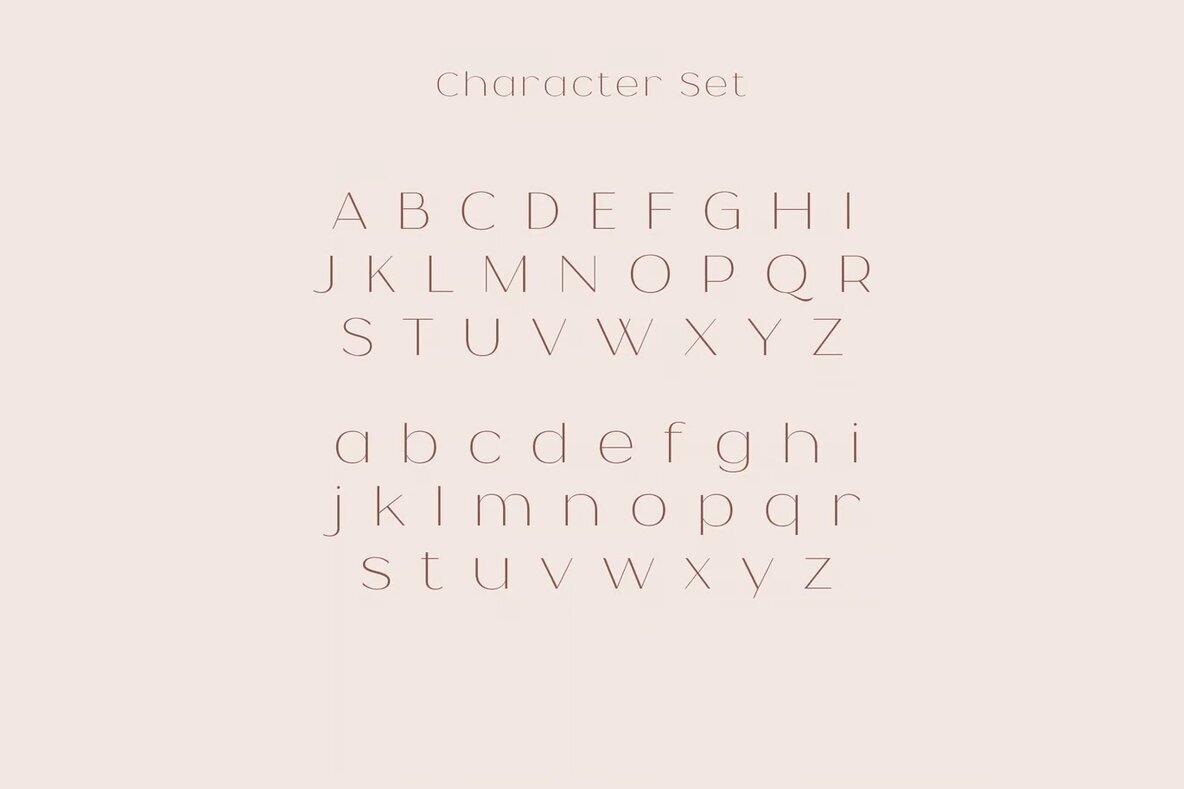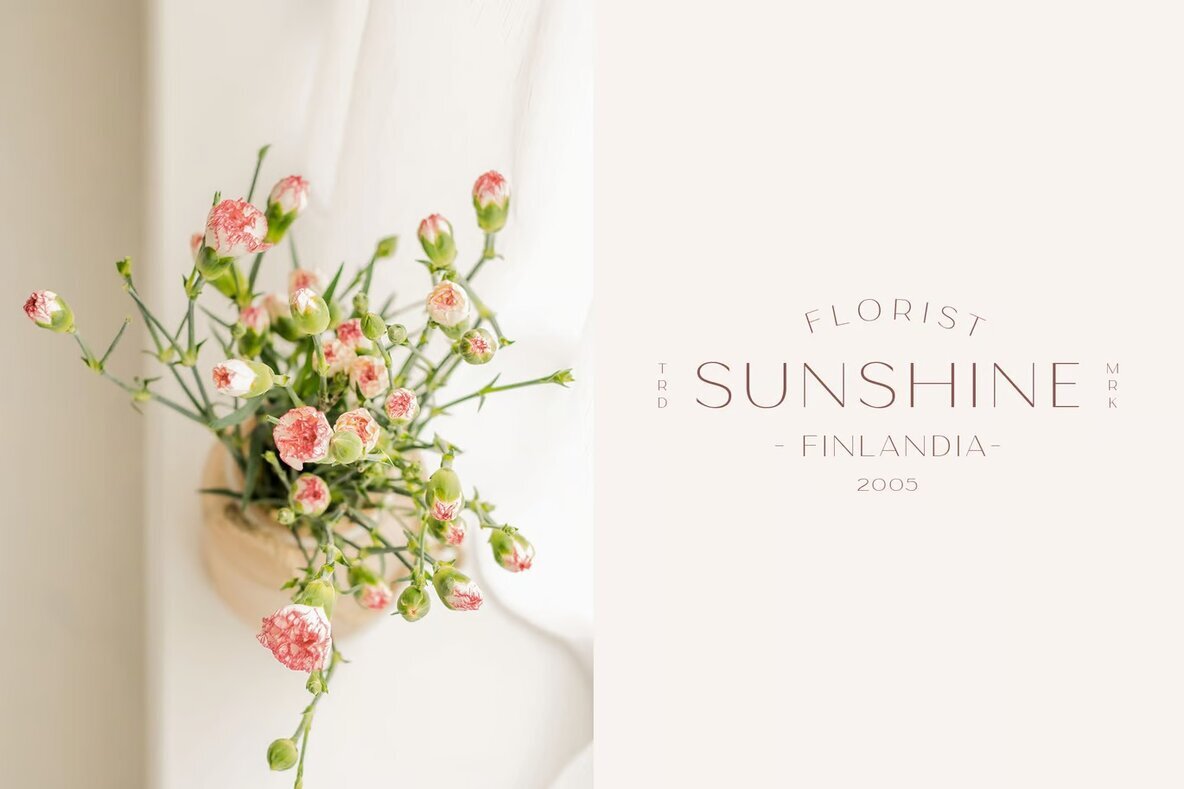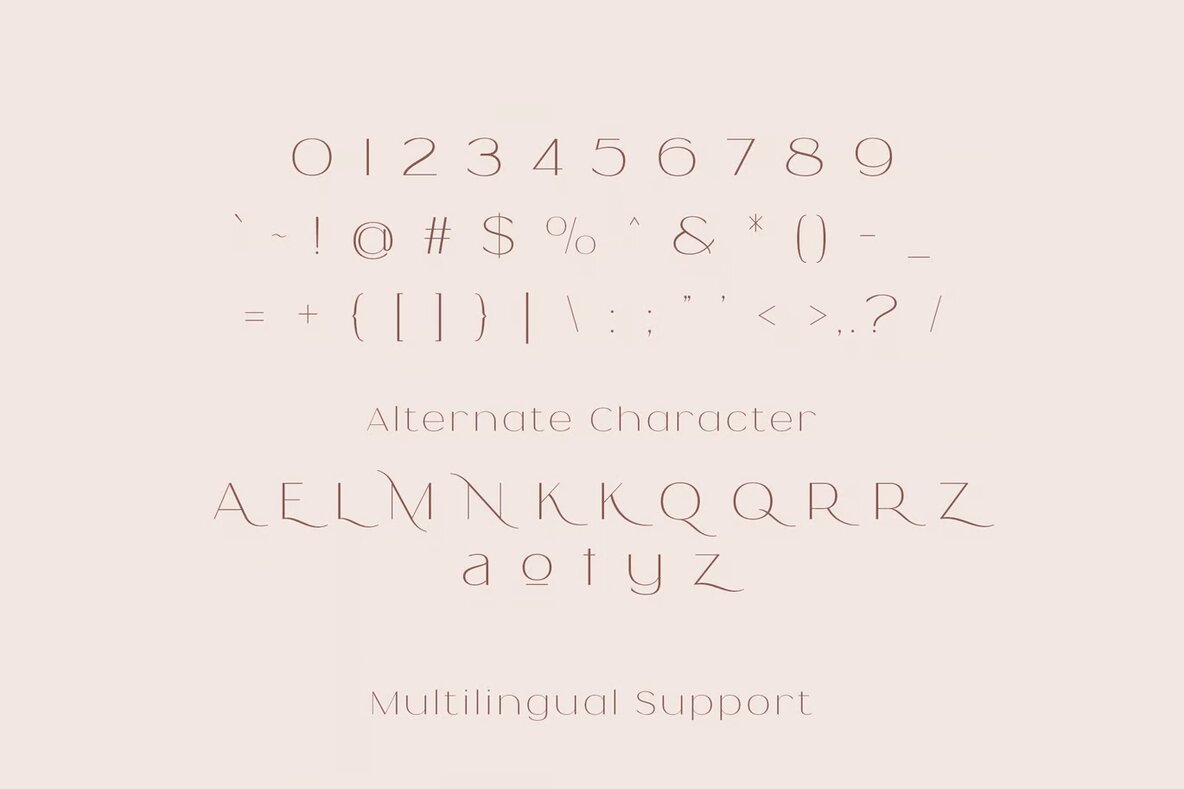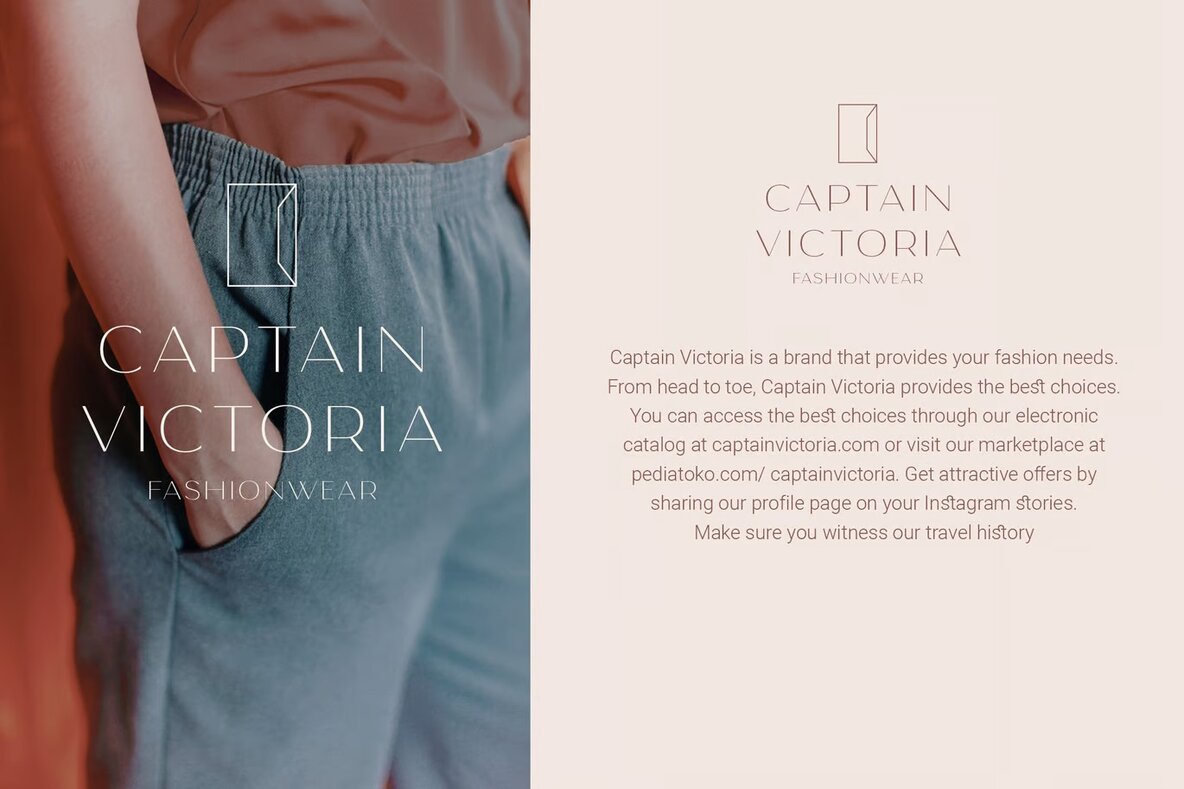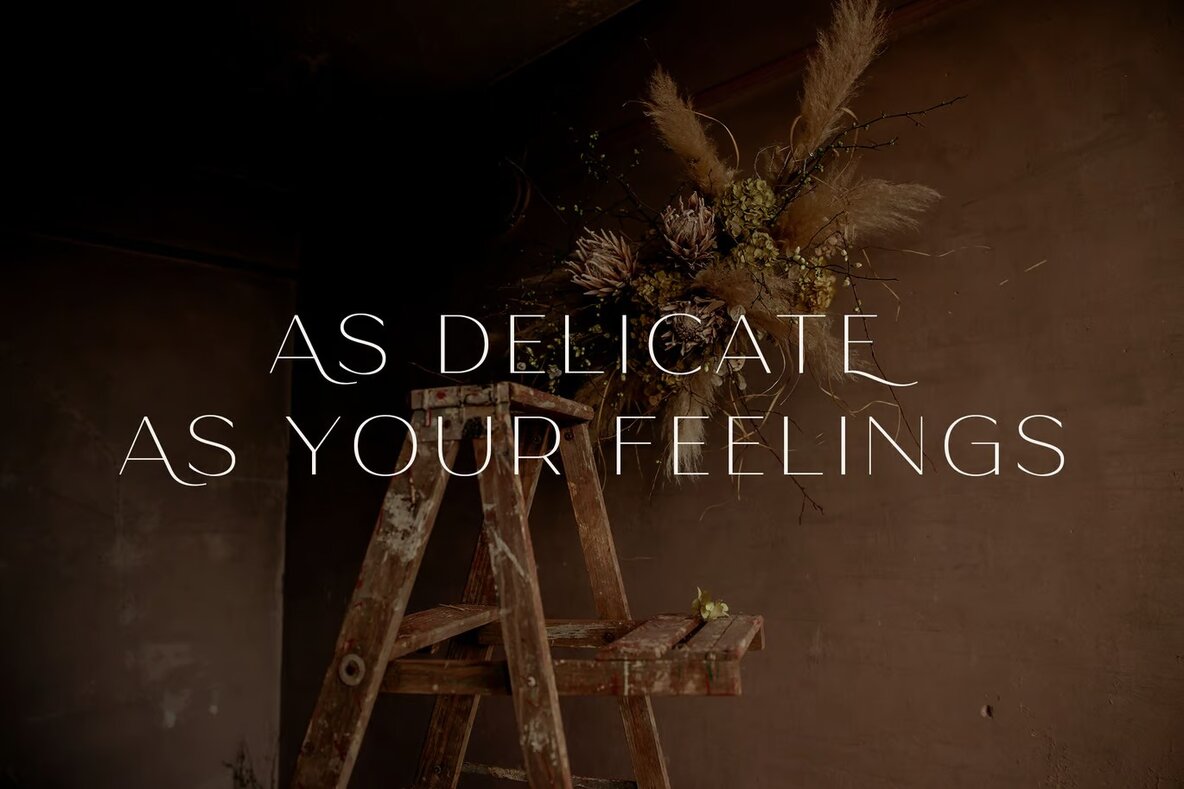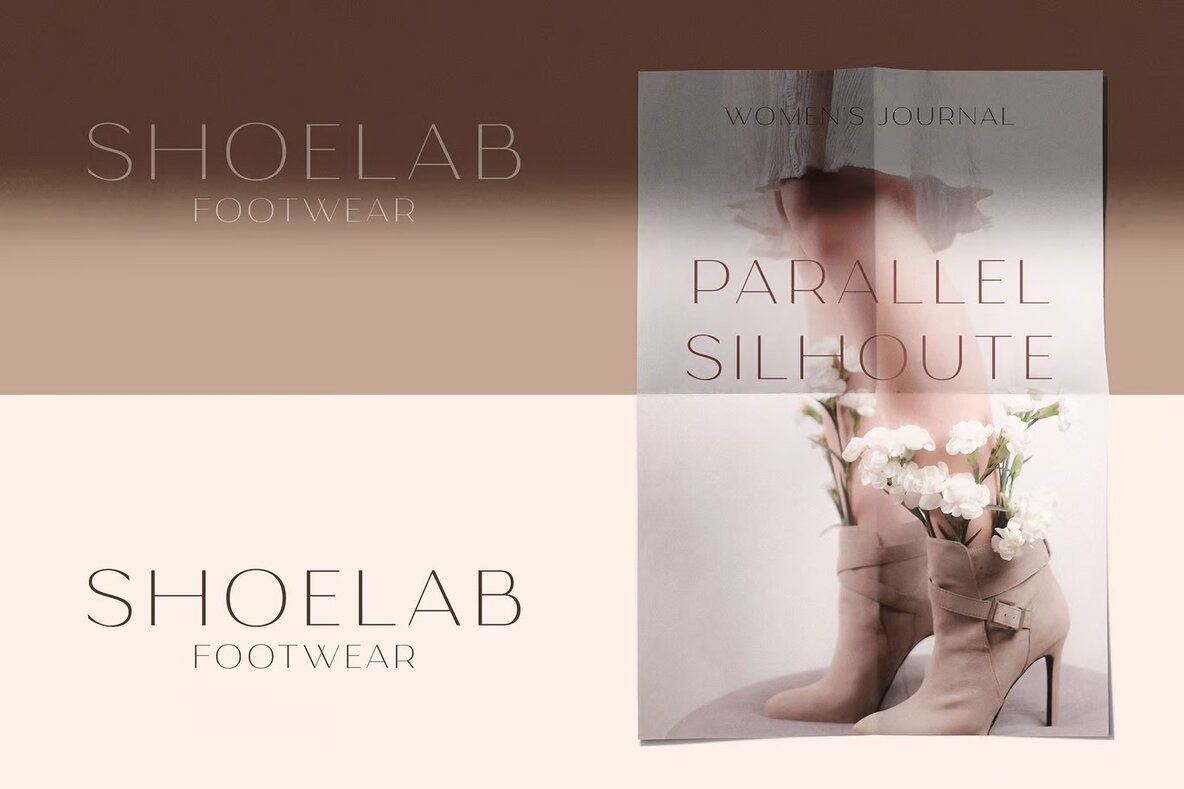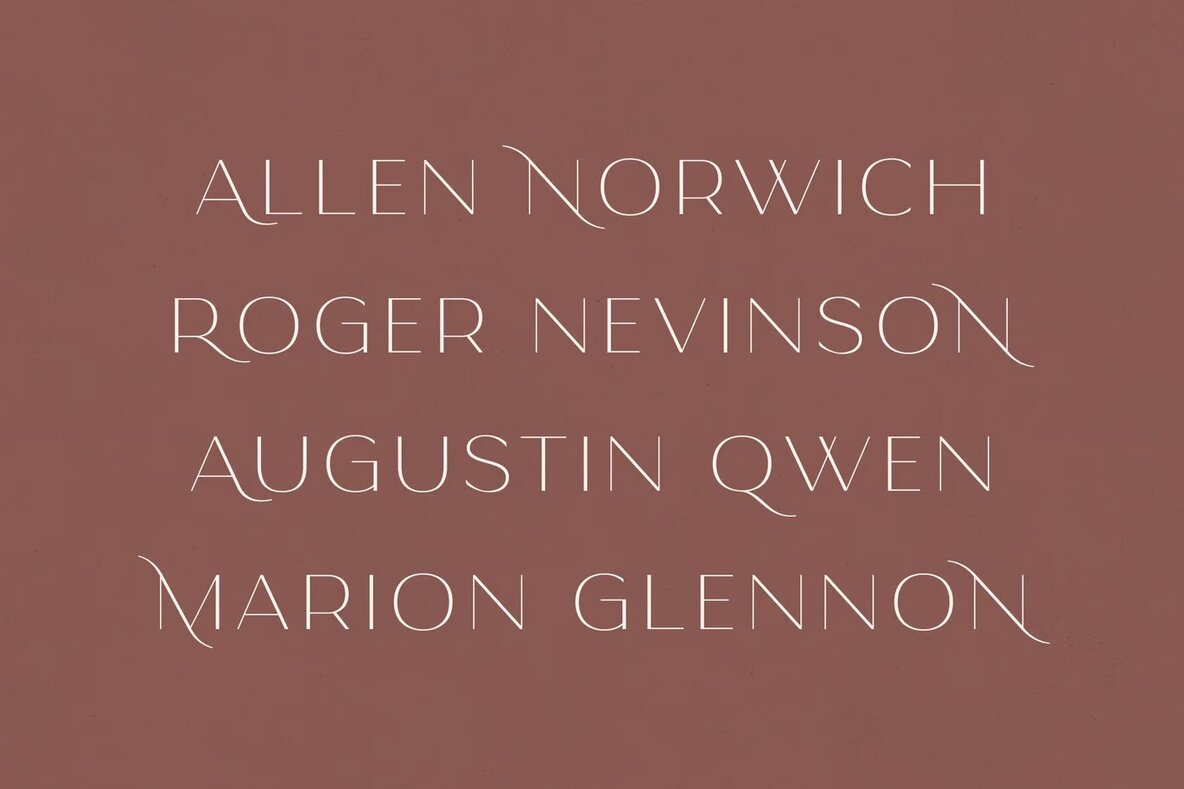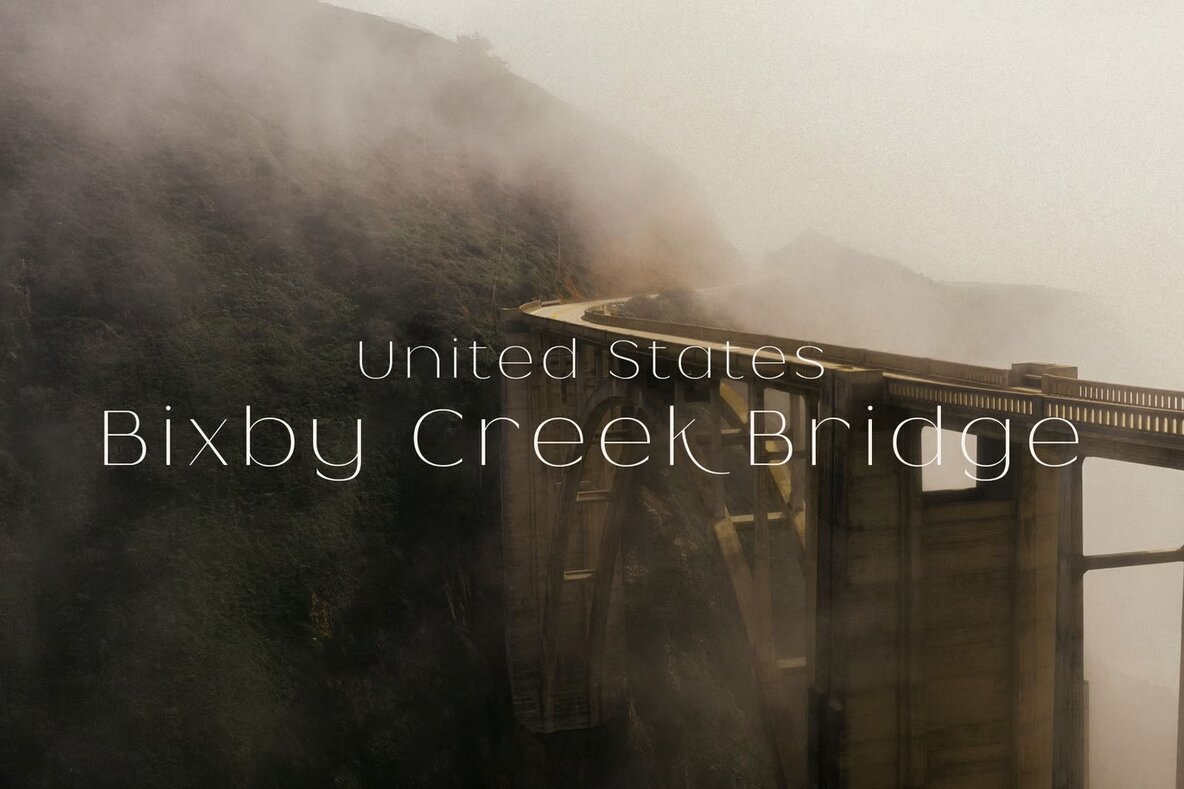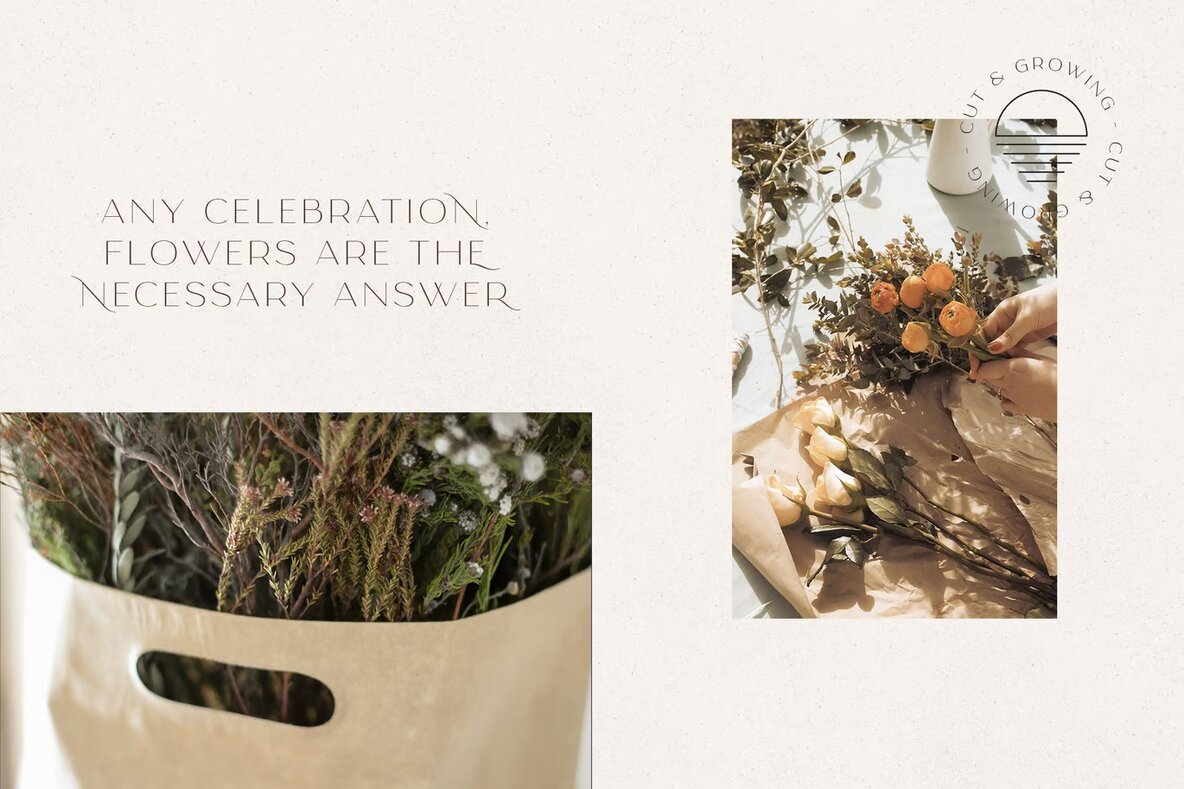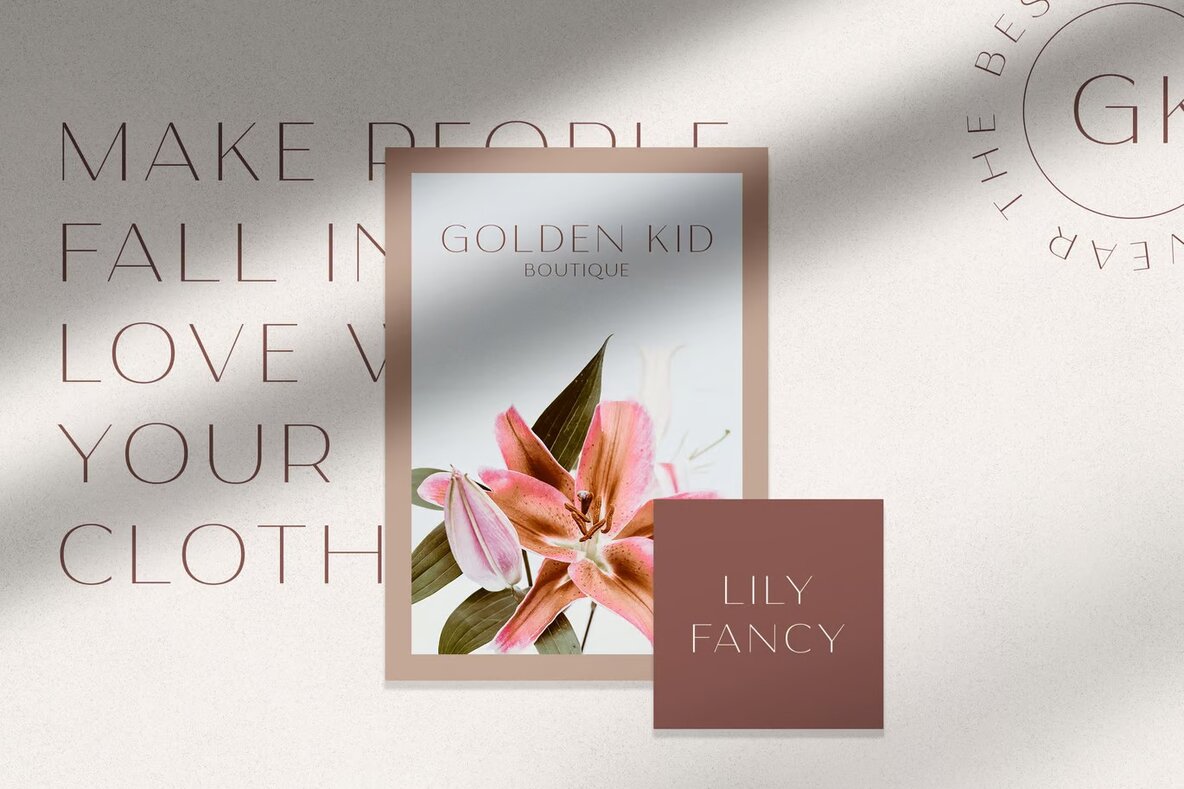
Quotesa Font
Quotesa Regular
Quotesa Sans is a sophisticated fancy sans serif font ideal for a wide array of design projects. Its elegant and modern design makes it an excellent choice for luxury logo branding, editorial layouts, and refined stationery. Perfectly suited for the fashion industry, Quotesa enhances salon beauty and feminine advertising designs with its stylish charm.
Utilize Quotesa Sans in digital projects such as blog or website design, and create chic card invitations or captivating art quotes. With its versatility, this font is perfect for home decor items, book and cover titles, and special event materials like wedding or birthday invitations. Discover the modern luxury of Quotesa Sans for all your design needs.